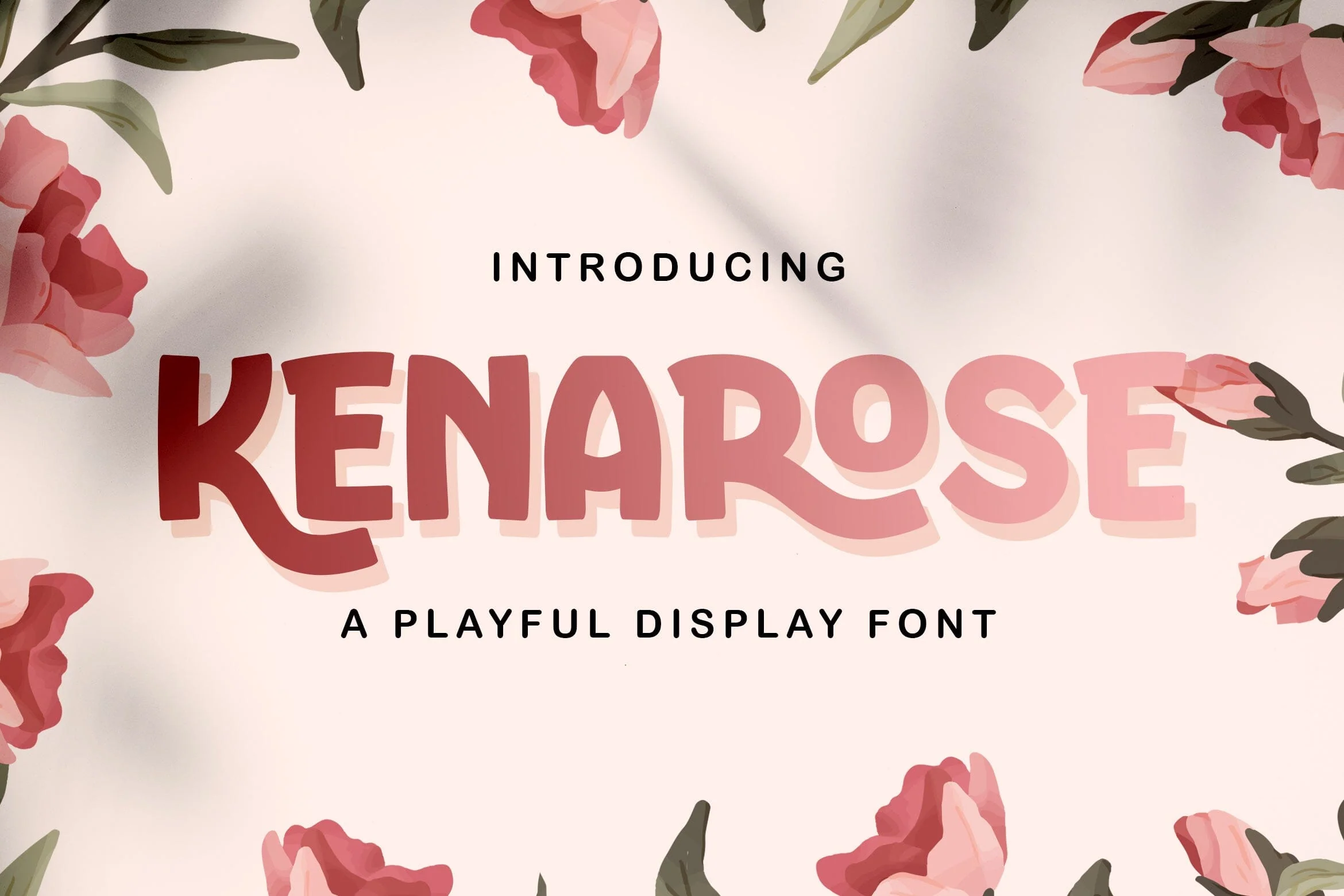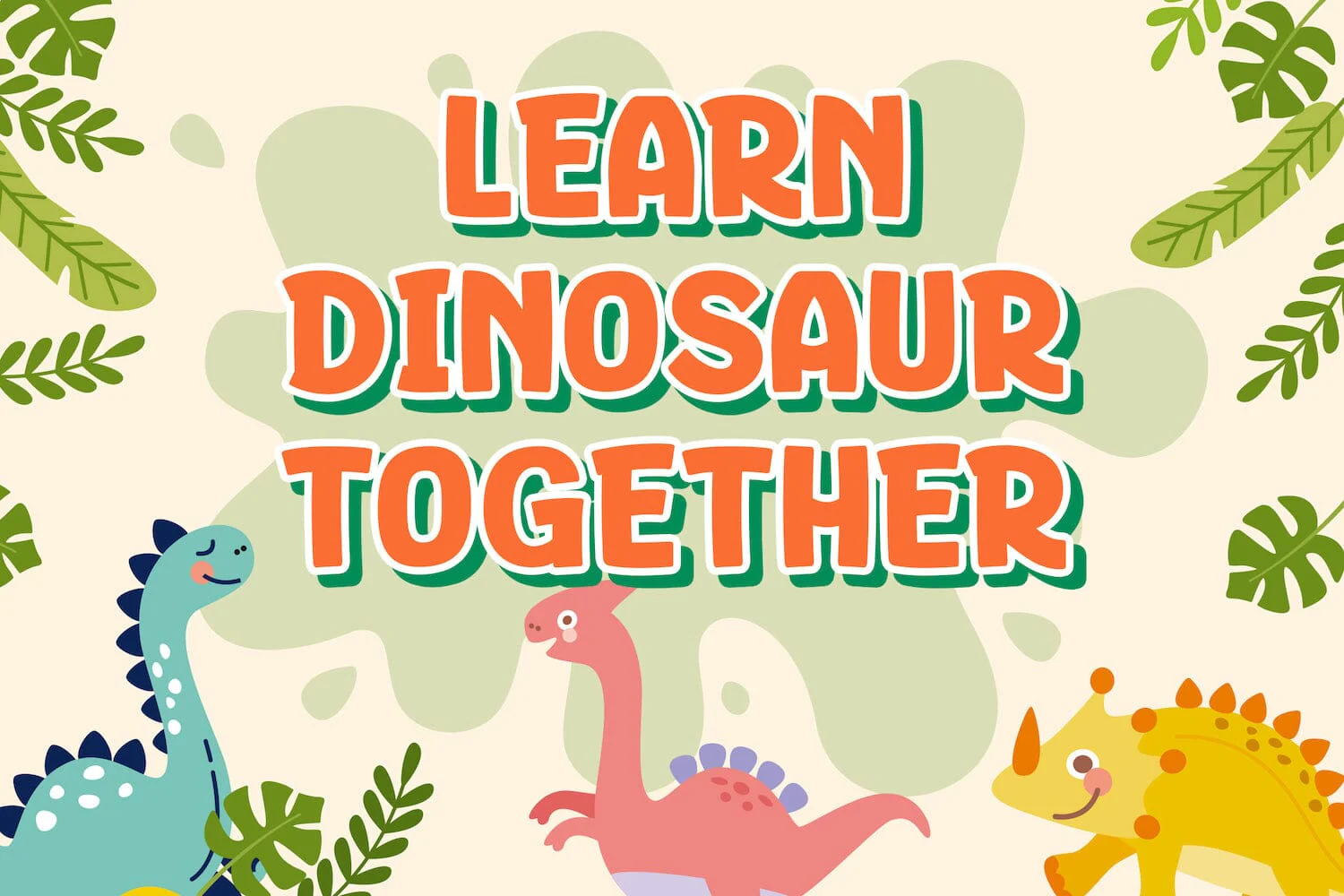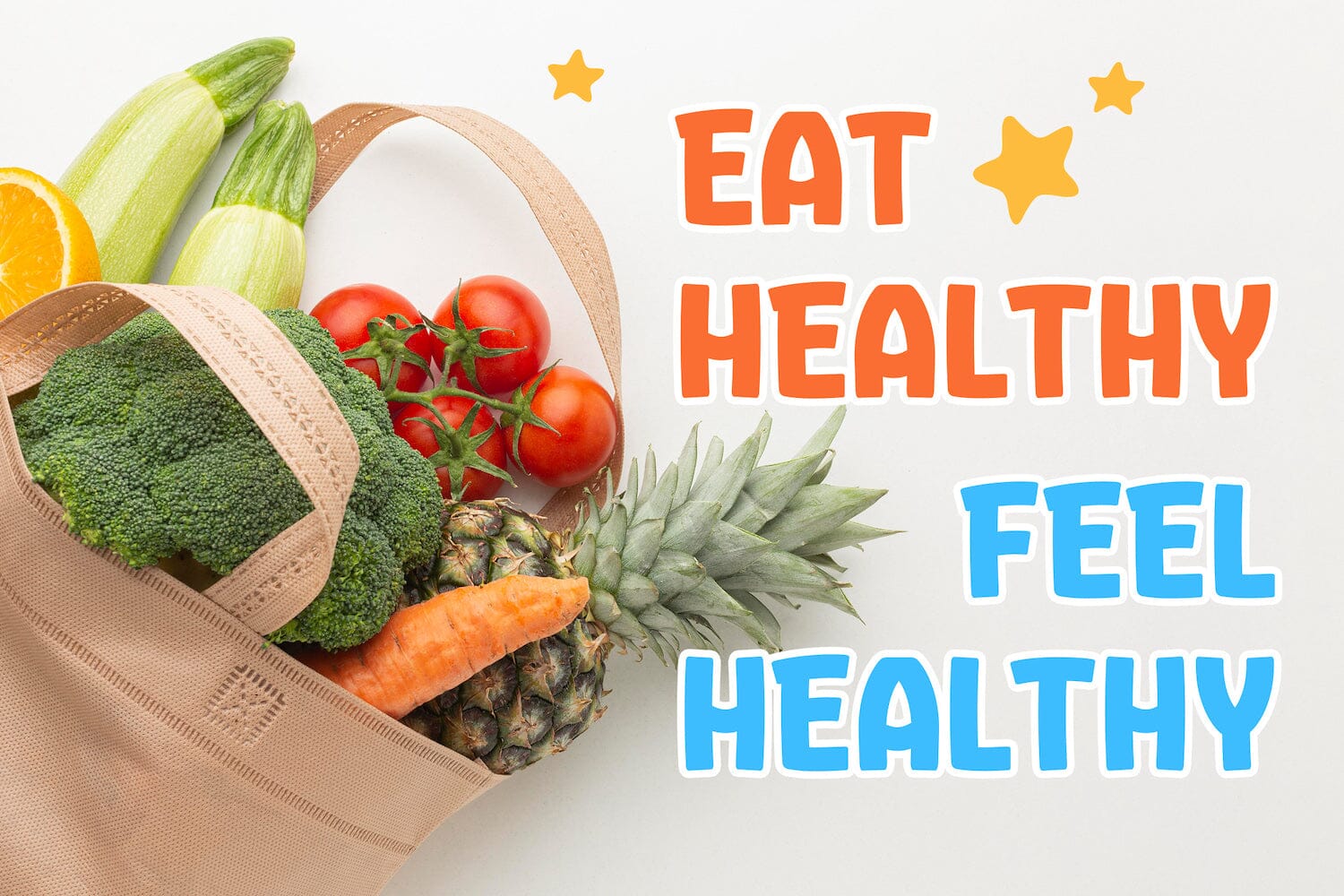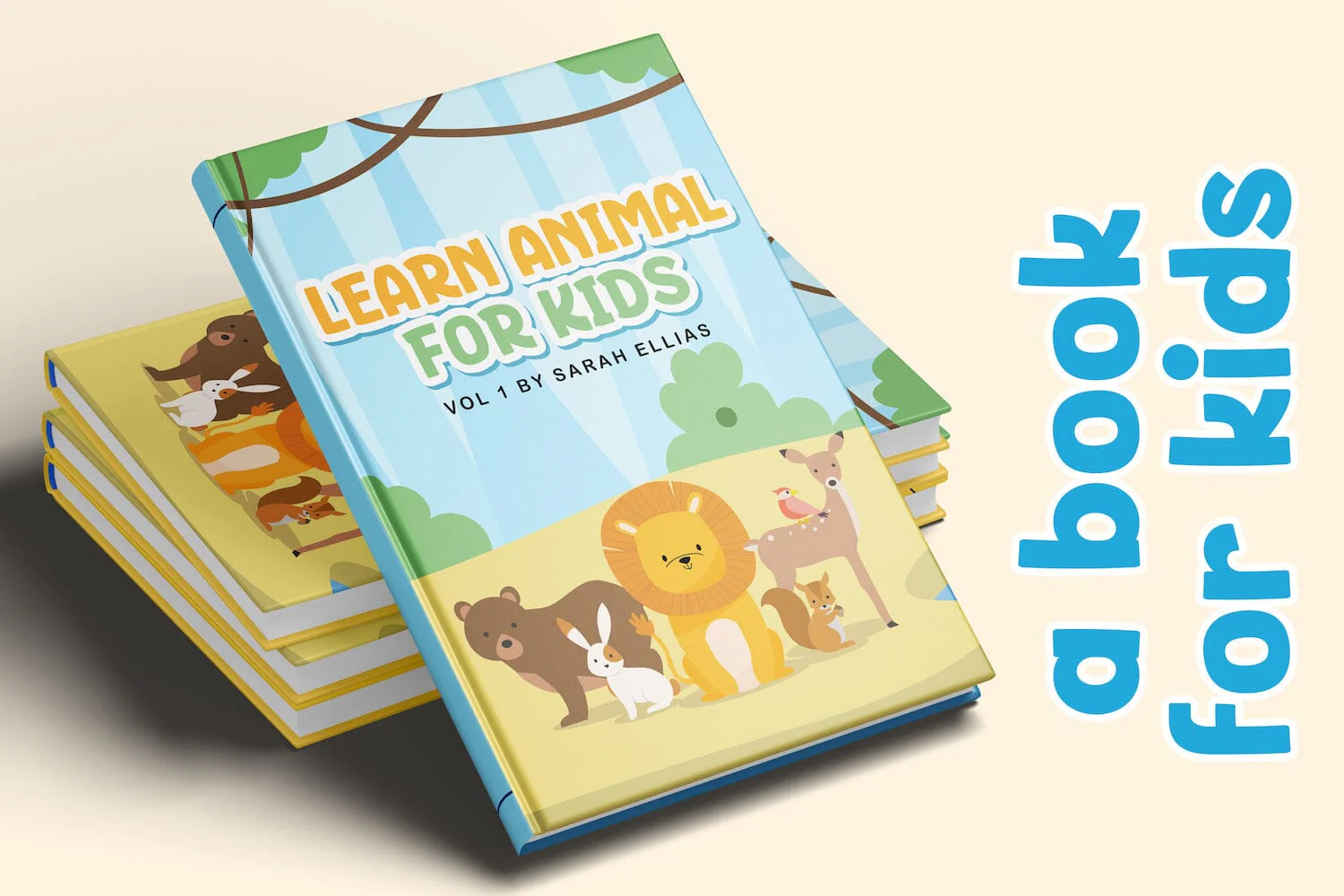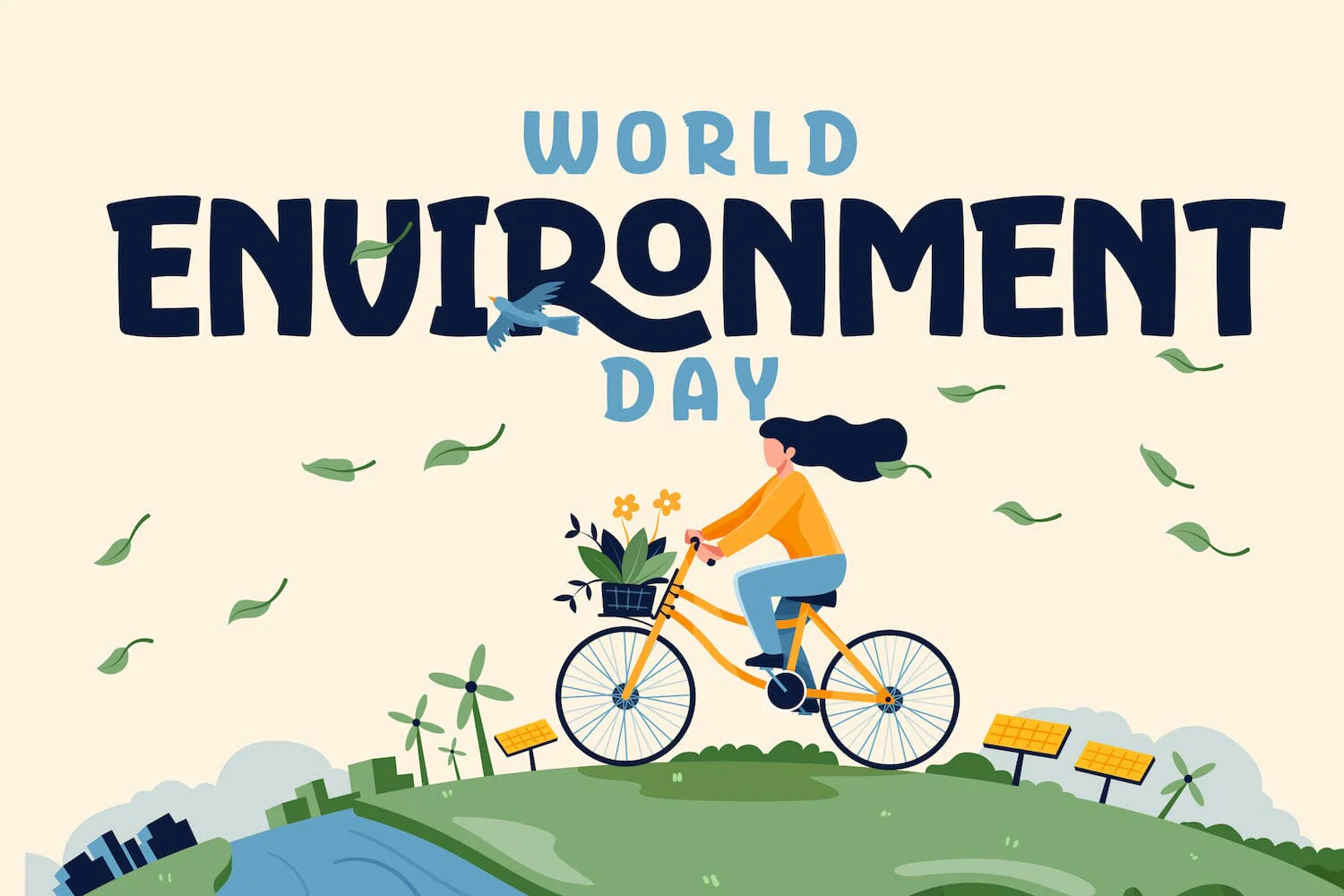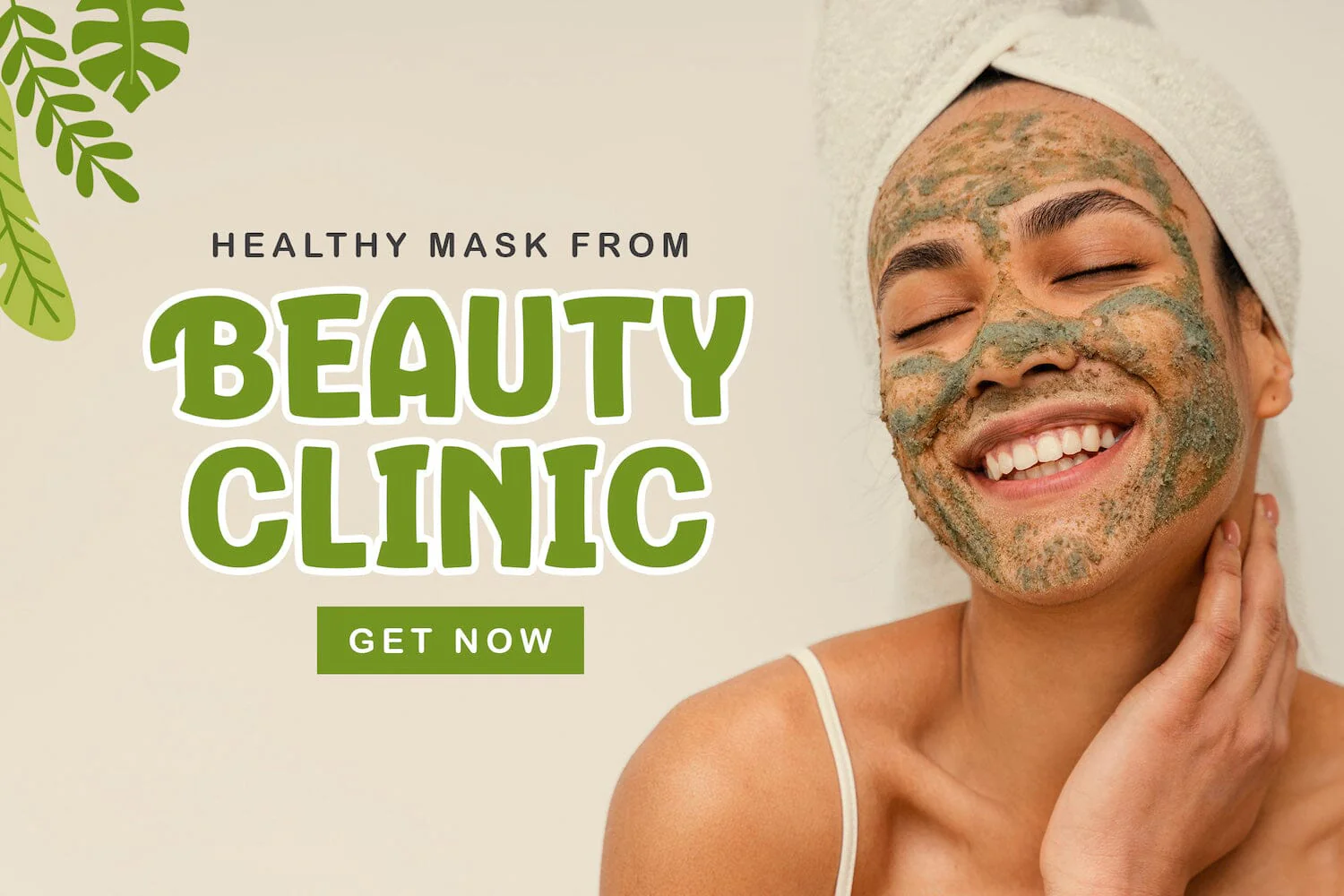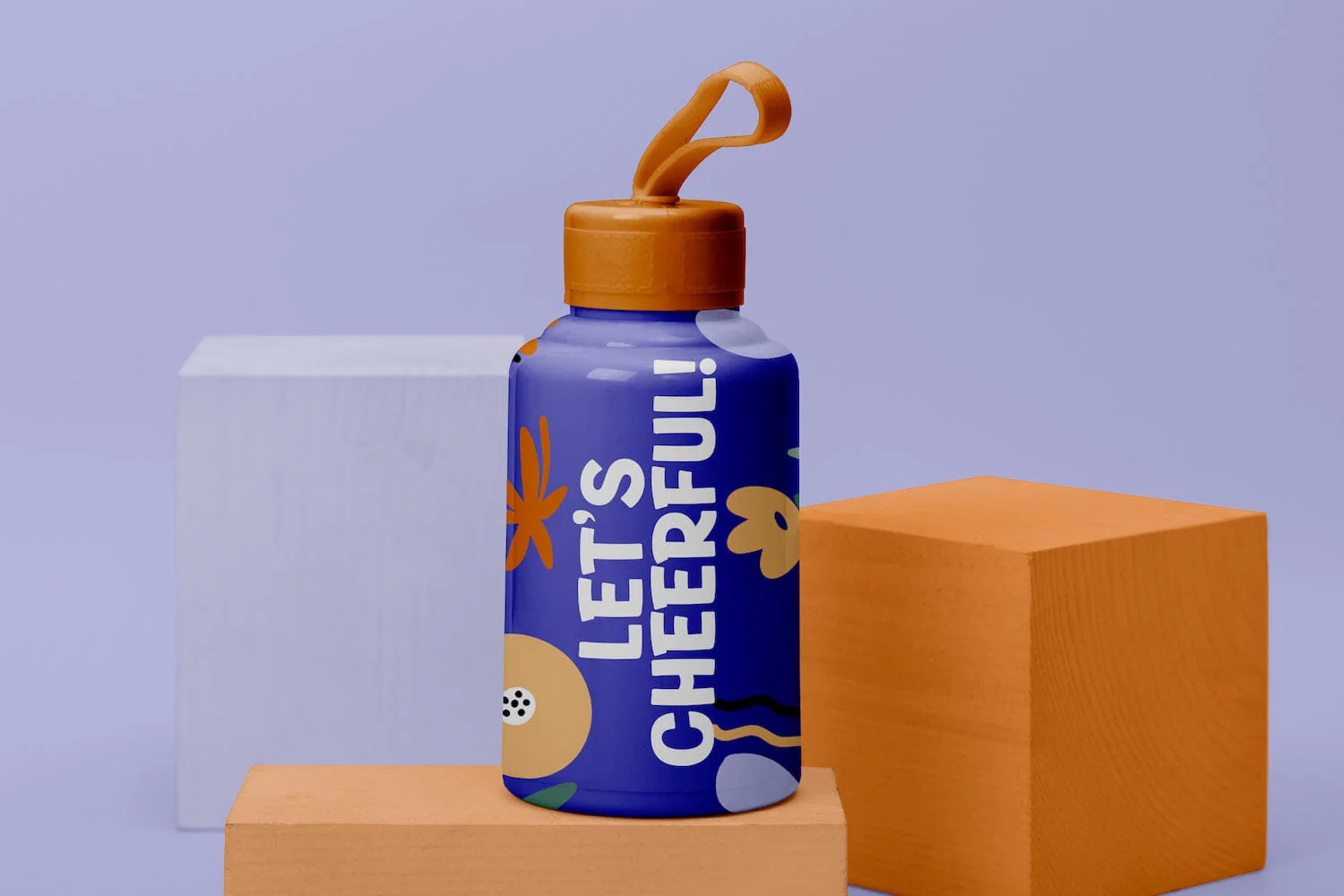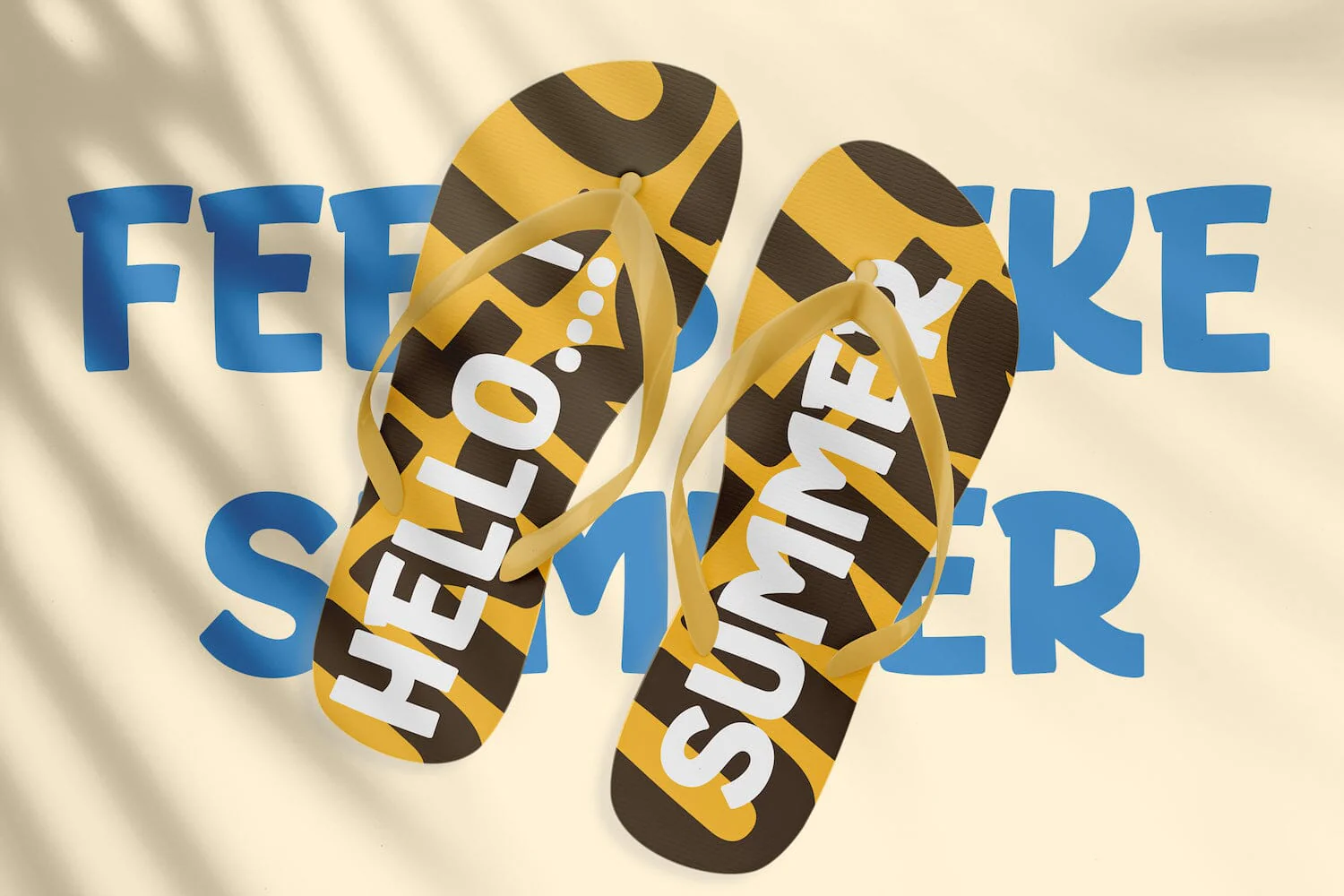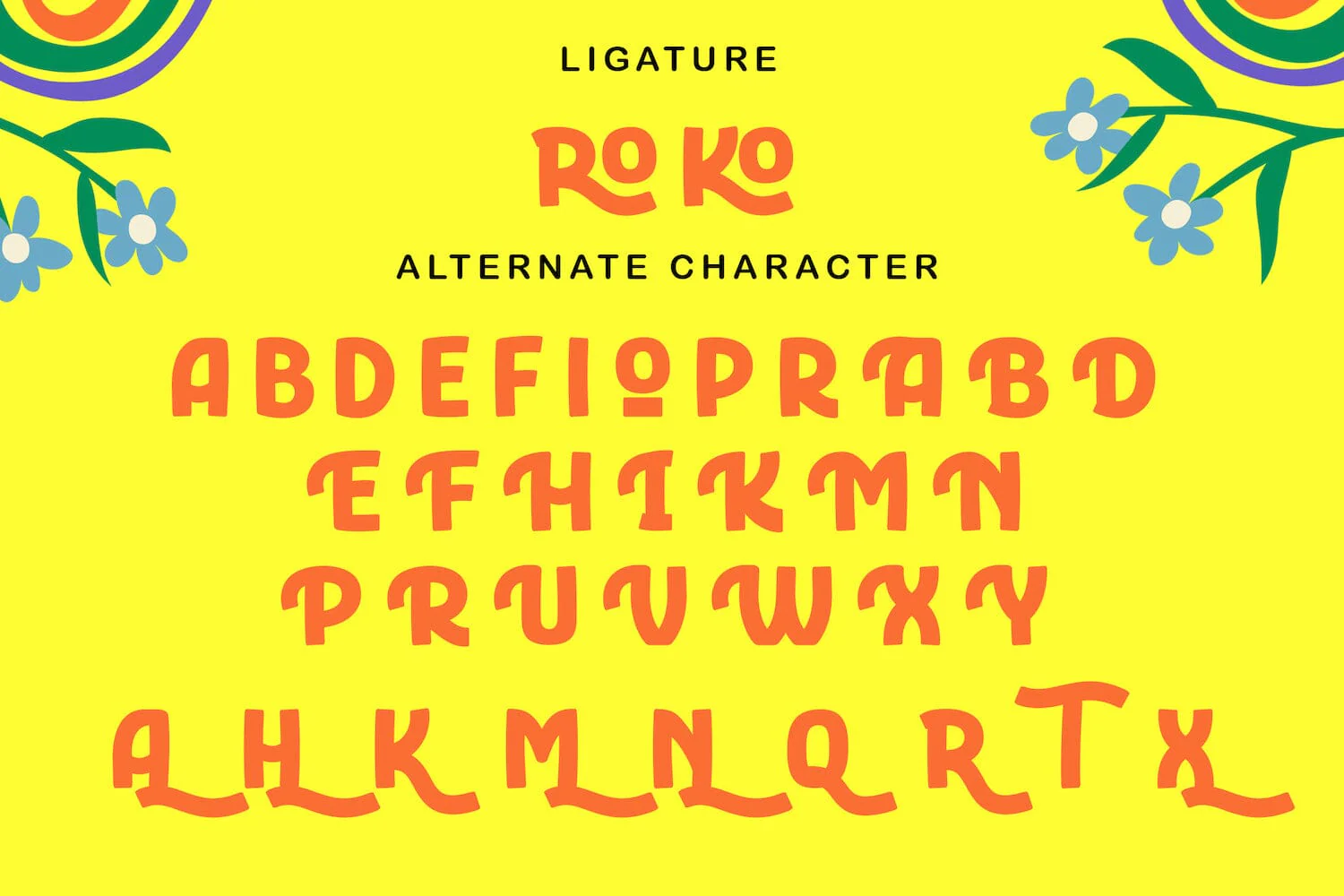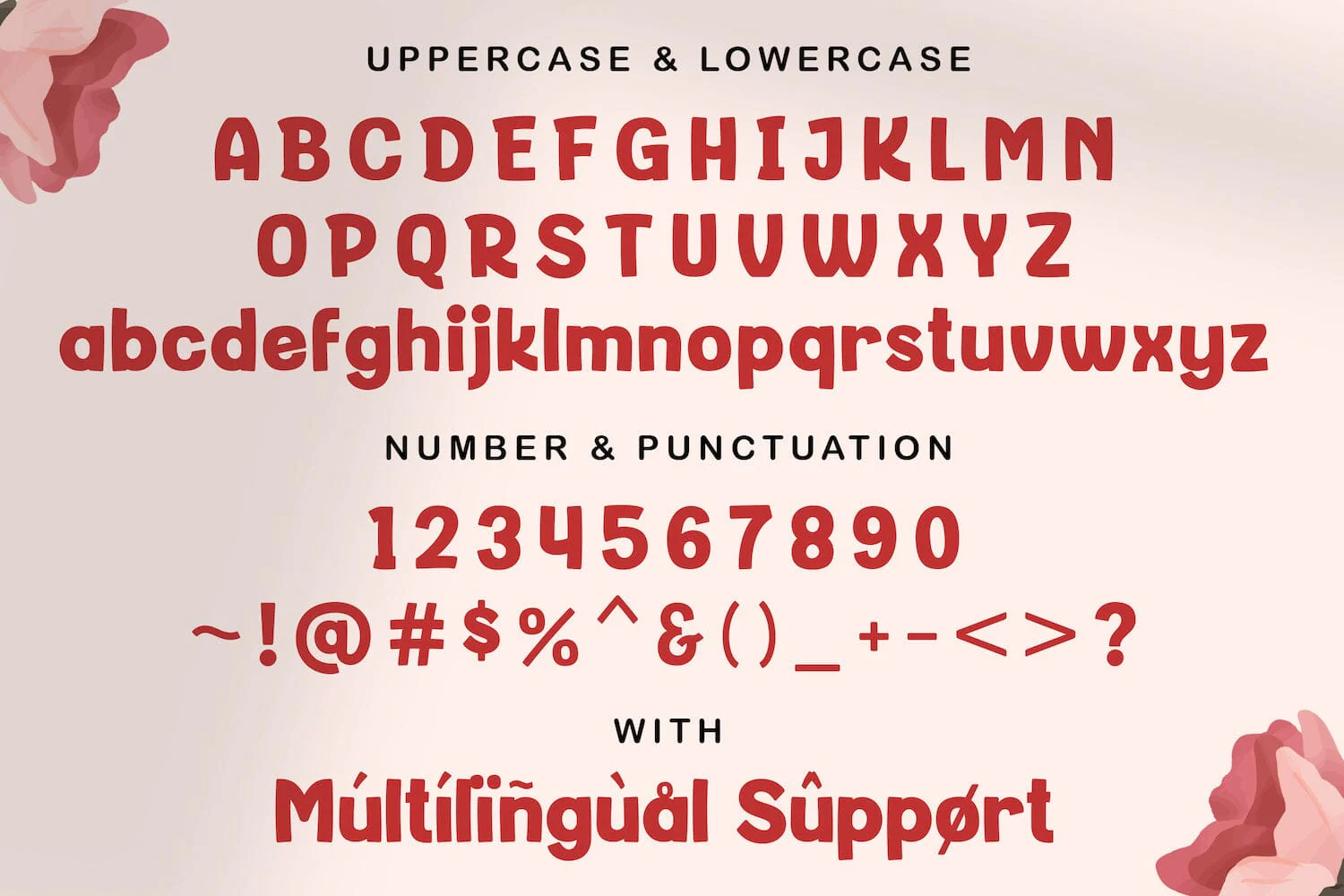
Kenarose - Playful Display Font
Introducing Kenarose - Playful Display Font
Kenarose is a fun display font. Playful and fresh, this font will be a hit for each of your children or school projects!
- Alternates & Ligatures
Introducing Kenarose - Playful Display Font
Kenarose is a fun display font. Playful and fresh, this font will be a hit for each of your children or school projects!
- Alternates & Ligatures